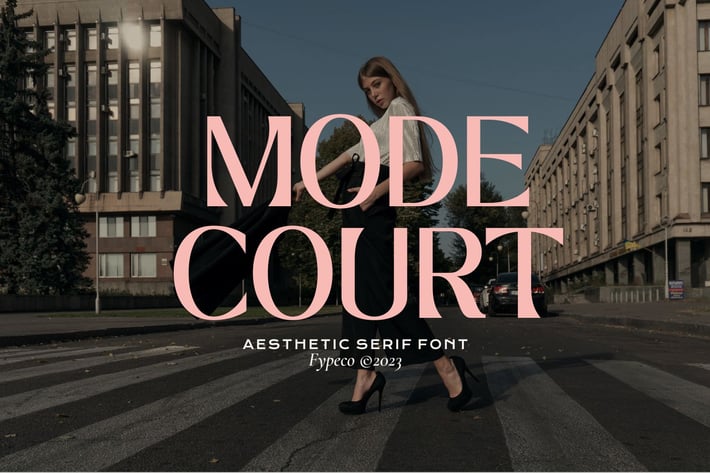
Mode Court - Aesthetic Font
Mode Court is aesthetic serif font. Minimalist and modern typeface great for logos, quotes, branding or editorial design. It is a unique typeface for your individual personality.
Font Features
-Uppercase
-Lowercase
-Numerals & Punctuation
-Multilingual Support